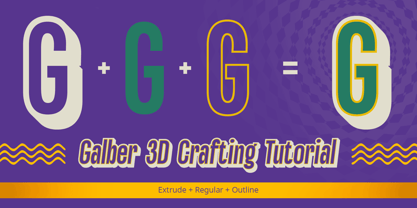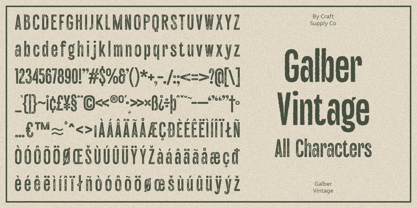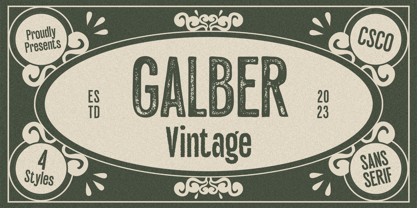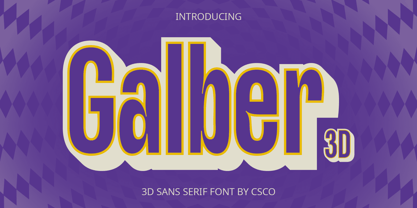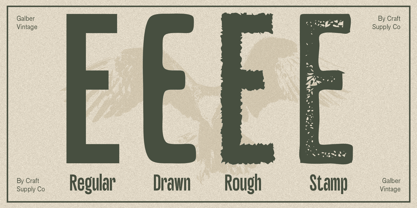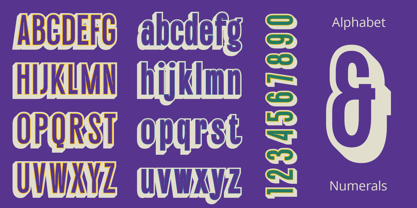
Galber
by Craft Supply Co
The Galber Font Family was designed by Trio Nazzar Saputra, Wahyu Hadi Yuana and published by Craft Supply Co. Galber contains 8 styles and family package options. More about this family
Introducing Galber - Compressed Sans Serif: A commanding typeface that captures the eye with its bold, condensed design. With its impactful lines and modern allure, Galber adds a strong touch to your projects. Elevate your designs with Galber's assertive style, making a striking statement that simply can't be ignored.
Designers: Trio Nazzar Saputra, Wahyu Hadi Yuana
Foundry: Craft Supply Co